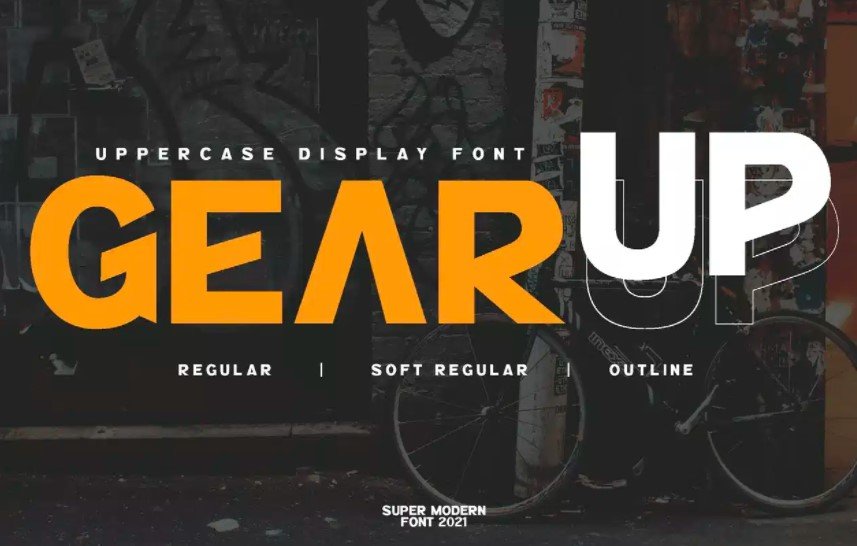
Introducing the perfect attractive and modern typeface which is GearUp Font Family that includes three amazing and great styles that contain bold, regular and thin. This is one of the best typefaces for all types of creative works.
You can easily layouts your work by customizing it with the use of this typeface. It will give your designs the incredible look which will enhance and boost your business for your company.
This is a great typeface to work on in your ongoing project because it contains the top rating on google and other fonts markets platform. Having awesome premium designing features to make anything unique and smart.
Tis is top class uppercase typeface having great and elegant features to use with all types of designs. You can also use it as pairing with the combination of spectral font.
This will become your lovely typeface when you will create your website designs with this and use your default font as Gearup in CSS files. Also, it is workable with the combination of the typeface as well. You can also use it as pairng with stoner script font.